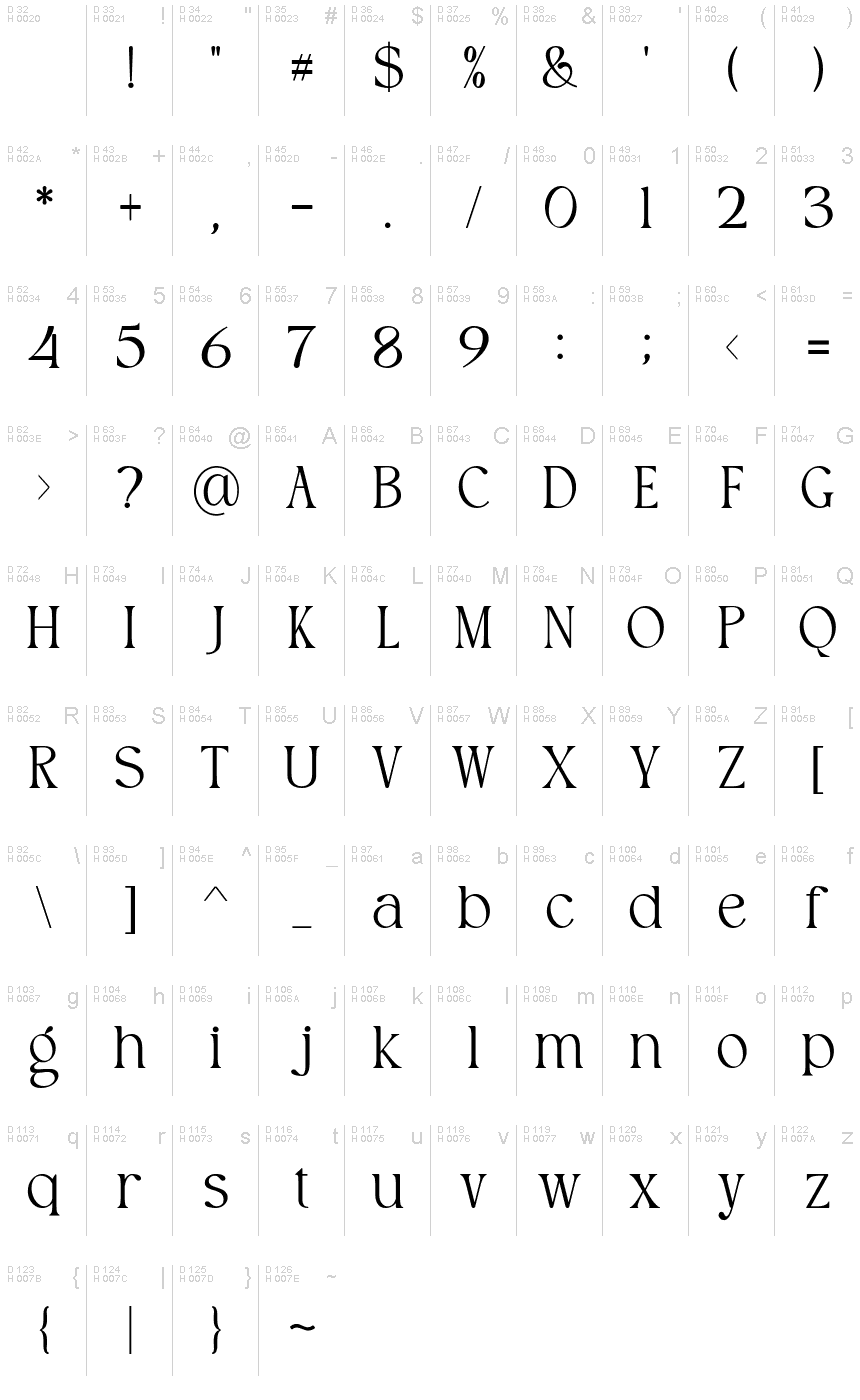
Glinster
Glinster is a charming vintage serif font designed by ToniStudio. Its semi-light weight adds an elegant touch to any project, making it perfect for wedding invitations, menus, and other formal documents. The subtle curves of the letters give off a romantic vibe that would also suit branding for a high-end fashion or beauty company. With its easy readability, Glinster would make an excellent choice for book covers and editorial design. This font's timeless style will add sophistication to any creative project you have in mind.